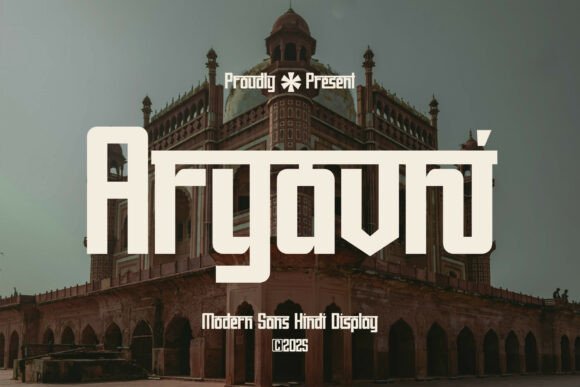
Discovering a New Era of Hindi Typography
As a designer, there’s nothing quite like the thrill of stumbling upon a fresh font that sparks new ideas and elevates your creative vision. It’s a moment that reminds you why you fell in love with design in the first place. For many, this epiphany comes in the form of a bold, clean, and contemporary typeface that perfectly captures the essence of modern Indian culture.
Aryavni Font is a stunning example of this phenomenon. Designed with a keen eye for detail and a deep understanding of Hindi typography, this sans display typeface is poised to revolutionize the way we communicate in the Indian language. Its strong geometric forms, smooth curves, and balanced proportions make it an invaluable asset for designers seeking to create powerful visual identities that resonate with diverse audiences.
Aryavni Font Key Features
- Unique Characteristics: Features intricate details and ornaments inspired by ancient Indian scripts, adding a touch of cultural richness to designs.
- Language Support: Includes support for multiple languages, including English, Hindi, and other Indian languages, making it a versatile choice for global designs.
- Font Weight: Available in 4 different font weights, including Light, Regular, Medium, and Bold, to provide flexibility in design applications.
Aryavni Font Review
Overall, I’m quite impressed with Aryavni Font. It’s a beautiful, elegant font that can add a touch of sophistication to any design project. ✨ One of its strongest features is its versatility – it works well in both digital and print formats.
- Unique and elegant design: Aryavni Font has a distinct, luxurious feel that sets it apart from more common fonts.
- High-quality rendering: The font looks crisp and clear, even at smaller font sizes.
- Good legibility: The font is easy to read, making it suitable for a wide range of applications.
- ⚠️ Limited character set: Aryavni Font may not include some special characters or symbols that you need for your project.
- ⚠️ No bold or italic variants: While the regular weight is great, it would be nice to have bold and italic options to add more variety to your design.
Overall, I think Aryavni Font is a great choice for designers looking for a high-end, elegant font. Its limitations are relatively minor, and its strengths make it a solid addition to any design library.
Tips for Getting the Most Out of Aryavni Font
To get the most out of the Aryavni Font, consider the following tips:
- Pair the font with a clean and simple design to let the font take center stage.
- Use the font in bold or italic styles to add emphasis and variety to your text.
- Experiment with different font sizes and line spacing to create visual interest.
The Aryavni Font is ideal for:
- Logo design and branding.
- Business card and stationery design.
- Editorial and publishing design.